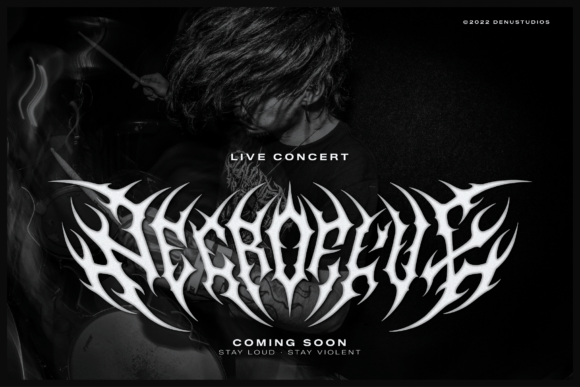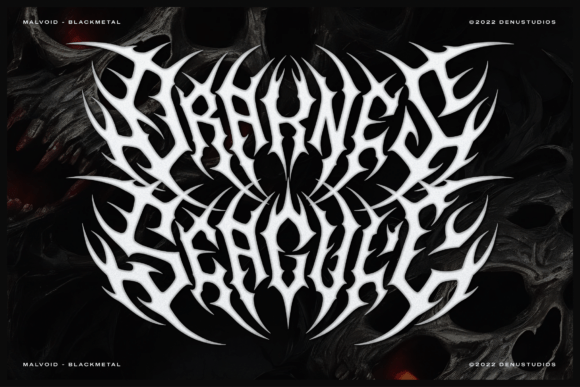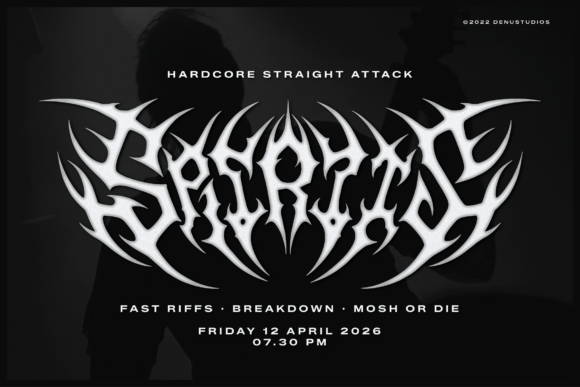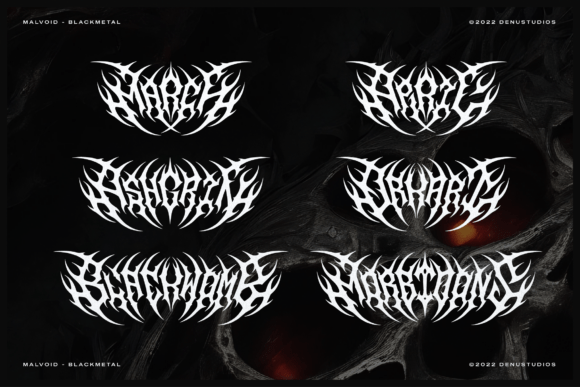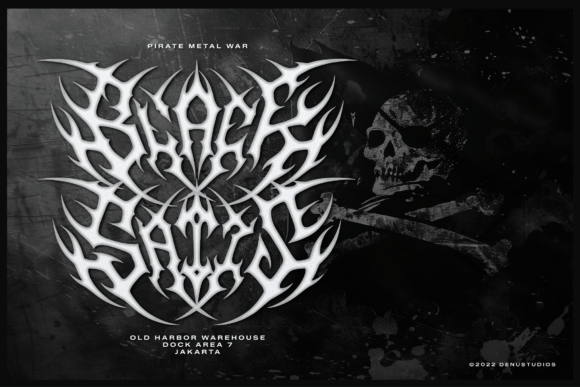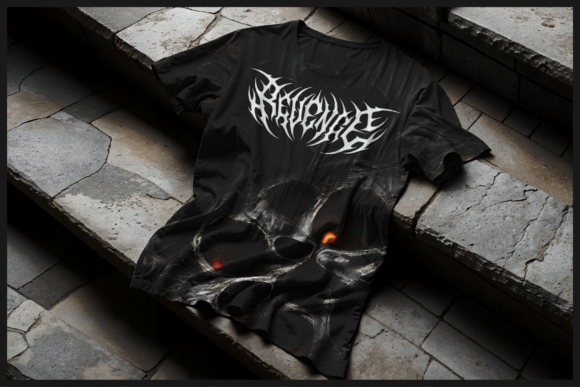
Unleashing the Dark Aesthetic with Malvoid Font
As a designer, there’s a moment when a project comes together, and you know you’ve hit the mark. It’s the fusion of style, atmosphere, and message that leaves a lasting impression on your audience. For those working in the dark and extreme music scenes, the right font can be the difference between a forgettable design and a haunting experience. Enter the Malvoid Font, a game-changing typeface engineered to capture the essence of the underground.
This powerful design resource is more than just a font – it’s a tool that can elevate your creative project from bland to mesmerizing. With its aggressive, sharp-edged characters and organic extensions, the Malvoid Font is perfect for death metal band logos, occult-themed merch, and underground zines that demand a menacing presence.
- High-quality design resource with a unique aesthetic, ideal for creative projects that require a distinctive touch.
- Unique characteristics include intricate details and subtle nuances, making it perfect for designers seeking a distinctive look.
- Malvoid Font is a versatile design resource, suitable for a wide range of creative projects, from branding and advertising to editorial and publishing.
I recently stumbled upon the Malvoid Font while searching for a high-quality font to use in a creative project. I’m glad I took a chance on it.
Here’s what I like about it:
- ✨ The font comes in a variety of styles and weights, giving me plenty of options for my design.
- ✨ The quality of the font is top-notch, with clear and crisp lines that look great on both light and dark backgrounds.
- ⚠️ The font doesn’t seem to be suitable for large-scale text, as it can become difficult to read at larger sizes.
Overall, I’m impressed with the Malvoid Font and would recommend it to designers looking for a high-quality, free resource for their creative projects. With a little creativity, I’m sure it can be used in a variety of applications.
The Malvoid Font is a high-quality, versatile font ideal for various creative projects. It features a transparent background, making it easy to integrate into any design.
The Malvoid Font is suitable for various design projects, including logos, brochures, posters, and social media graphics. Its versatility and high quality make it an excellent choice for creative professionals and hobbyists alike.